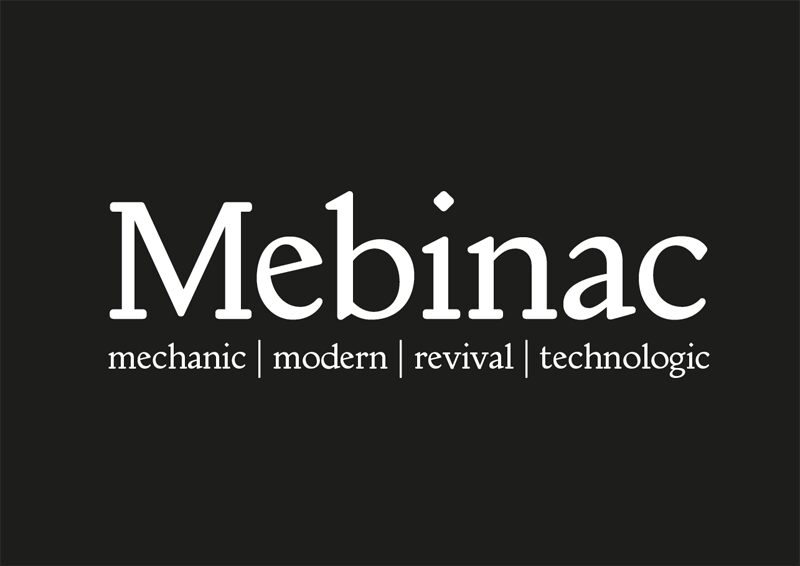
Mebinac regular Regular
Mebinac, a captivating serif font designed by Alan Hayward, exudes an elegant and sophisticated charm. Featuring clean lines, subtle serifs, and a harmonious balance, this typeface showcases exceptional legibility and a timeless appeal. Its refined aesthetic lends itself seamlessly to a wide range of applications, from editorial design to luxurious branding.
The Mebinac font's versatility shines through its ability to convey both a sense of tradition and modernity. Its versatile character makes it an ideal choice for projects seeking to strike a balance between classic elegance and contemporary flair, such as high-end magazines, exclusive event invitations, or prestigious corporate identities.